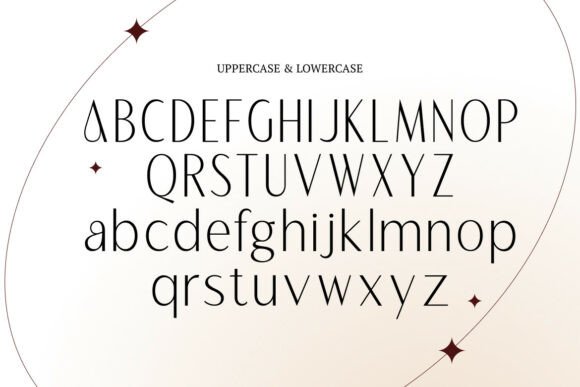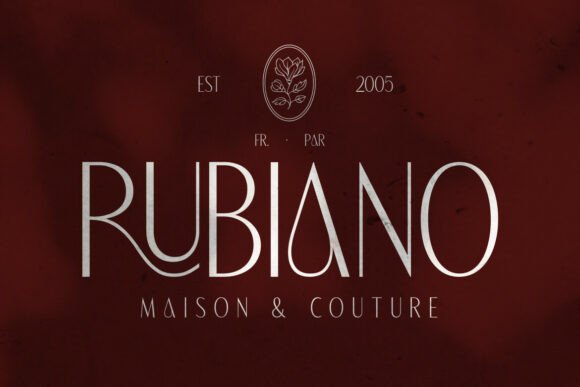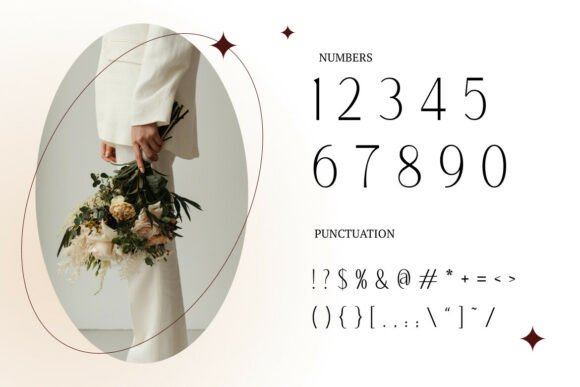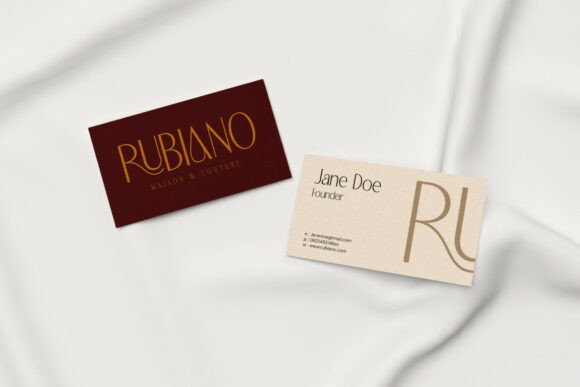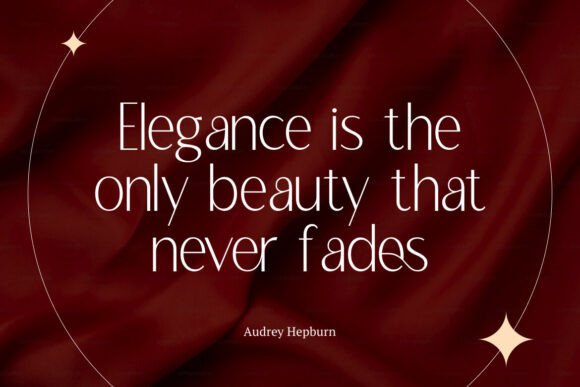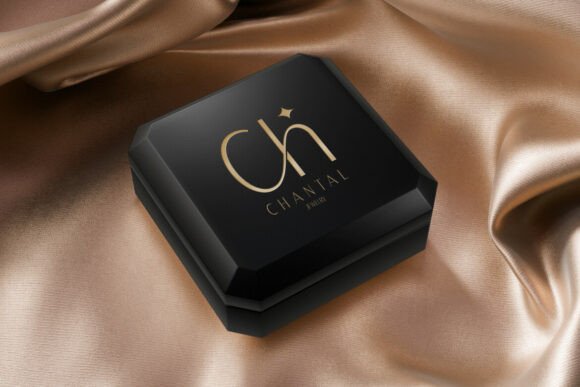
Introduction to Alestiqua Font
Alestiqua is a high-contrast elegant sans serif font designed to bring sophistication and modern refinement to contemporary typography.
Alestiqua is designed for projects that require a refined modern aesthetic The font works beautifully for luxury branding, fashion magazines, editorial layouts, boutique logos, beauty product packaging, social media branding, and sophisticated marketing materials where elegant sans-serif typography enhances visual impact.
Key Features of Alestiqua Font